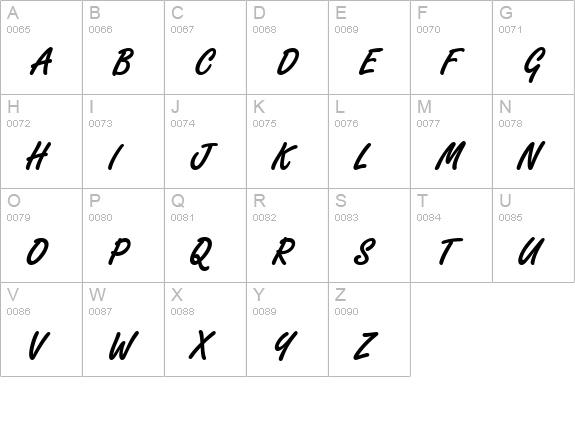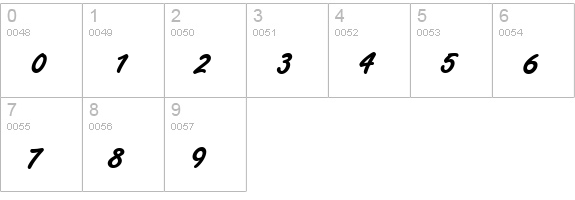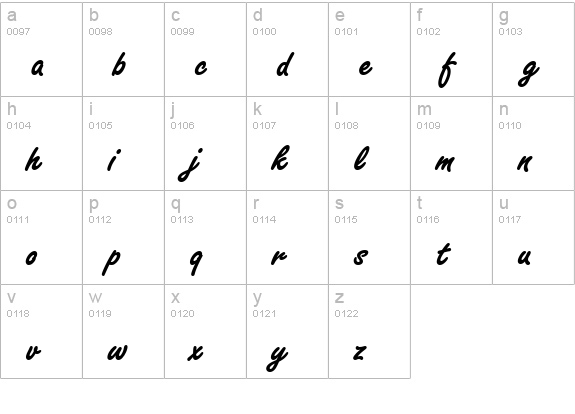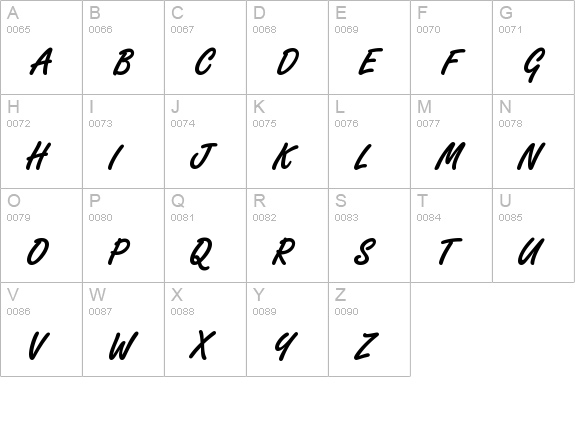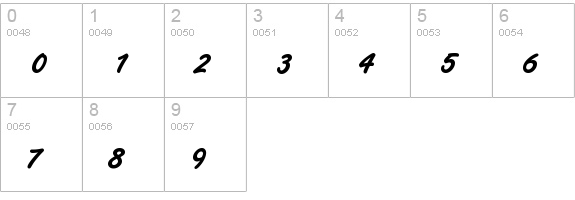
FreestyleScrDEE Bold Font Details
FreestyleScrDEE Bold is a strong, high-contrast variant in the FreestyleScrDEE typeface family \xE2\x80\x94 well suited to headlines, attention-grabbing titles, and strong calls-to-action.
FreestyleScrDEE Bold is a unique and eye-catching font that exudes creativity and flair. With its bold and dynamic design, this font is perfect for making a statement in your projects. The intricate details and stylish curves of FreestyleScrDEE Bold make it stand out from the crowd, adding a touch of sophistication to any design. One of the best features of FreestyleScrDEE Bold is that it is available for free download at FontsMarket.com. This means you can easily access this stunning font and use it in your projects without any cost. Whether you're designing posters, logos, or any other creative work, FreestyleScrDEE Bold will elevate your design with its modern and stylish look. Don't miss out on the opportunity to enhance your designs with FreestyleScrDEE Bold. Download this exceptional font for free at FontsMarket.com and unleash your creativity today!